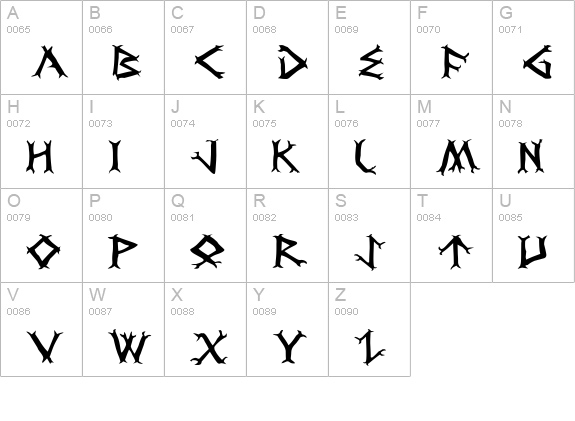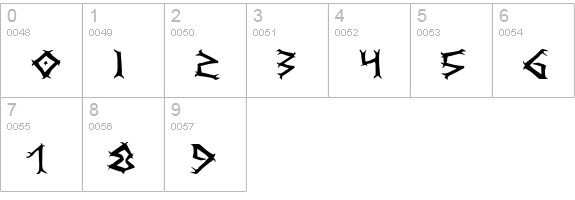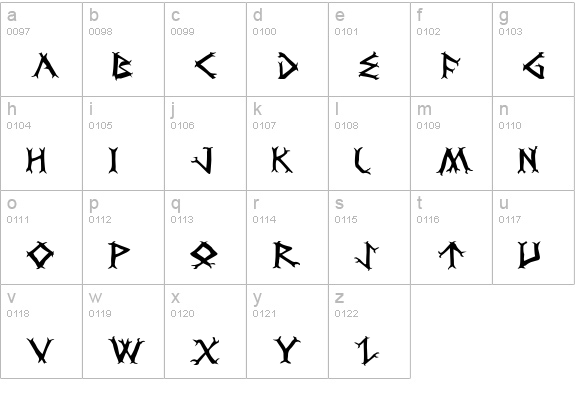
Introducing the mesmerizing Dragon Order font - a majestic and powerful typeface that exudes a sense of mythical wonder and ancient strength. This font is meticulously crafted with intricate details that evoke the essence of dragons and their legendary tales. With its bold and commanding presence, Dragon Order is perfect for projects that require a touch of fantasy and adventure. The best part? Dragon Order font is available for free download at FontsMarket.com. Embrace the magic and power of dragons with this unique and captivating typeface that will surely elevate your designs to new heights. Whether you're working on branding, posters, or any creative project, let Dragon Order be your trusted companion in bringing your vision to life. Download now and unleash the mystical allure of this extraordinary font.